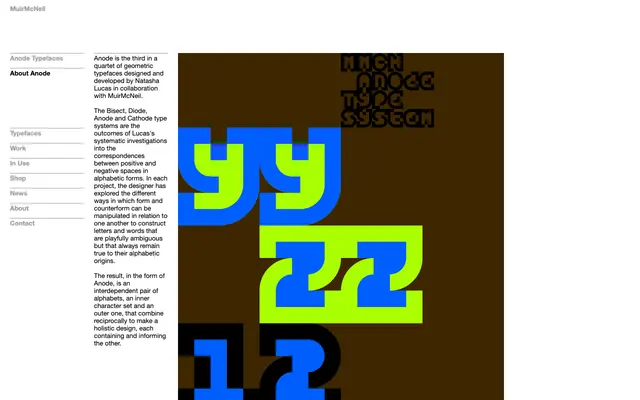
Anode
Muirmcneil · Natasha Lucas
A geometric display typeface built from reciprocal inner and outer alphabets designed to layer precisely, creating letters that balance legibility with formal ambiguity.
Designed by Natasha Lucas in collaboration with MuirMcNeil, Anode is the third in a quartet of type systems exploring the relationship between positive and negative space in alphabetic forms. The family comprises four versions including two subcomponent sets, all engineered to register exactly when overlaid. Letters function as an interdependent pair of alphabets, each containing and informing the other, making Anode as much a visual system as a typeface.
Anode is a geometric display typeface built from a systematic investigation into form and counterform, producing layered inner and outer alphabets that are decorative and experimental rather than suited to continuous text.